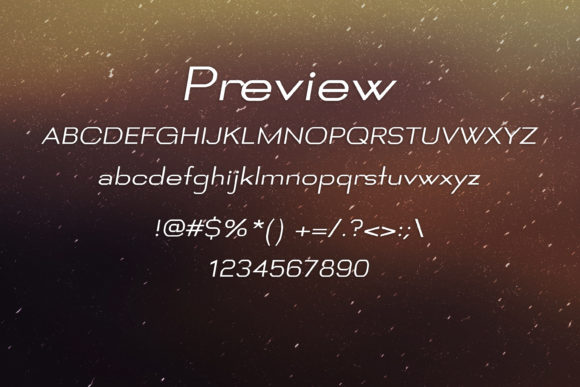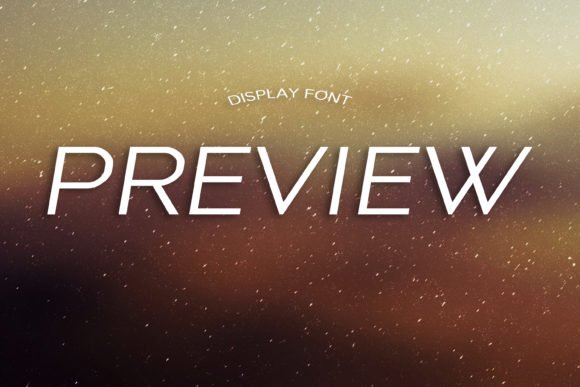
Introduction to Preview Font
Preview feels clean, modern and simply gorgeous.
This slightly tilted display font will deliver any message with clarity and legibility .